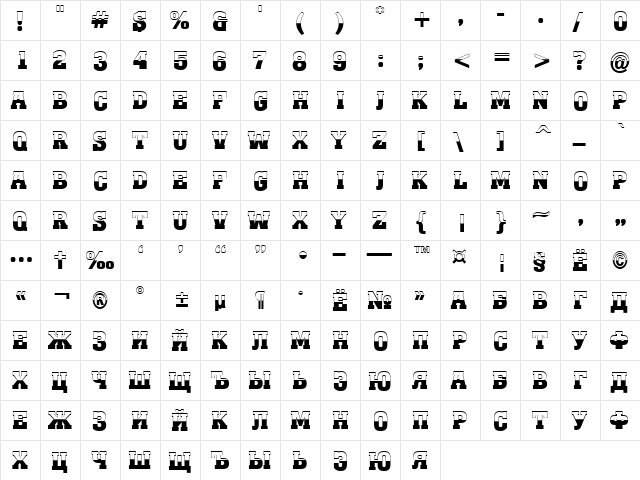
a_MonumentoTitulB&W Bold
Design Context for a_MonumentoTitulB&W Typeface
a_MonumentoTitulB&W takes a measured approach to typography — its balanced proportions and neutral character make it a reliable workhorse for both digital and print work. Its bold stroke weight gives it real presence on the page.